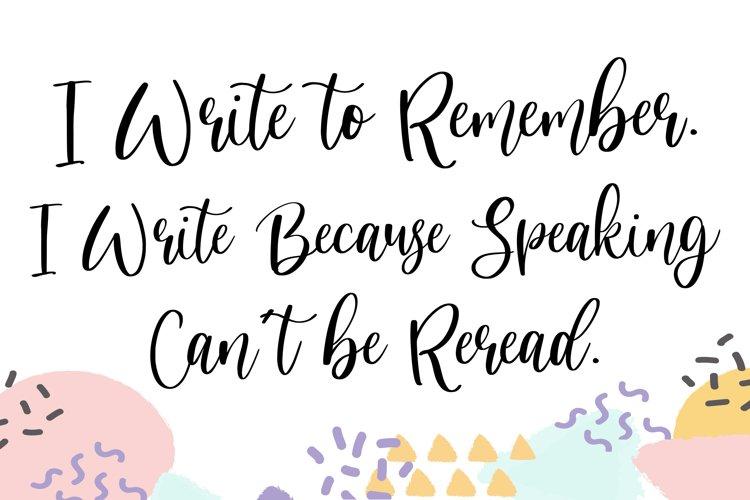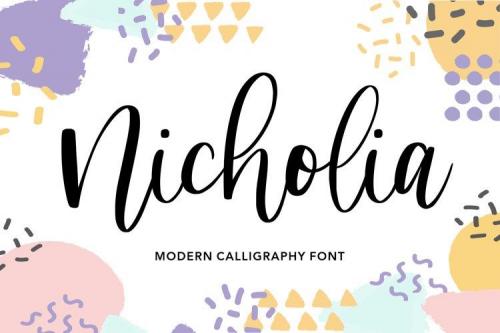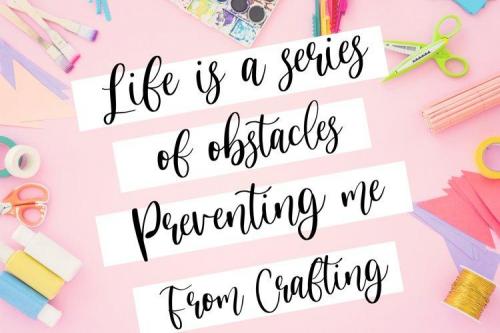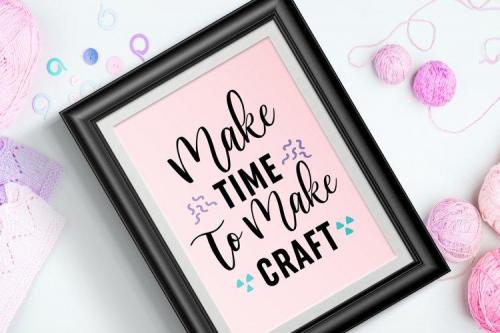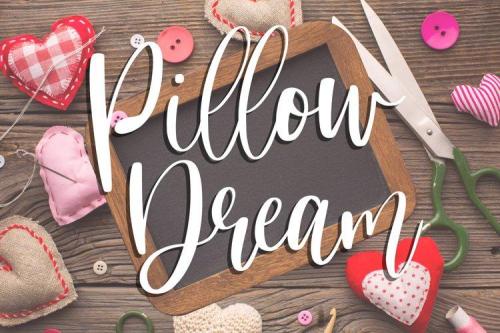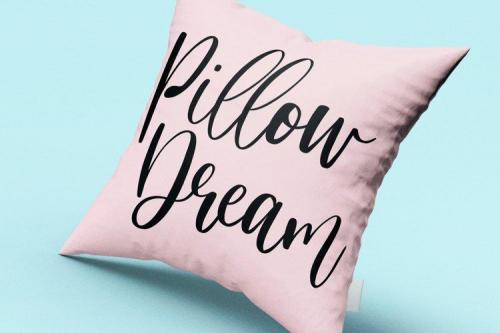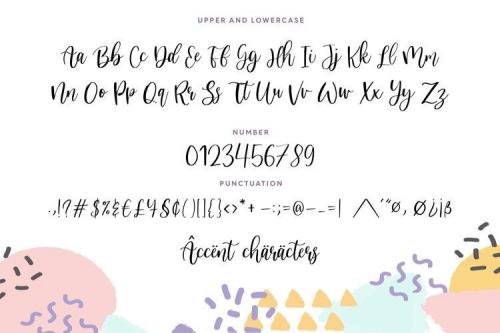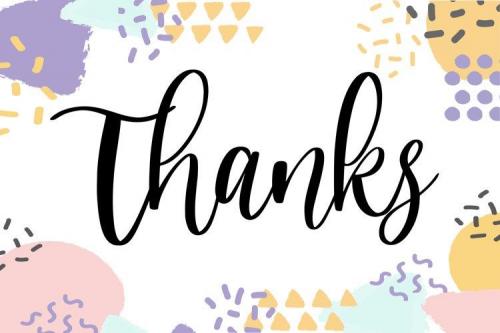
Nicholia Modern Calligraphy Font
Nicholia is a modern look of Script font, can make your text appear elegant, luxurious, and modern! It’s containing upper & lowercase characters, all punctuation and numerals.
Nicholia is great for Invitations, Greeting Cards, Posters, Name Card, Quotes, Blog Header, Branding, Logo, Fashion, Apparel, Letter, Book, Magazine, Advertising Design, Stationery and more!